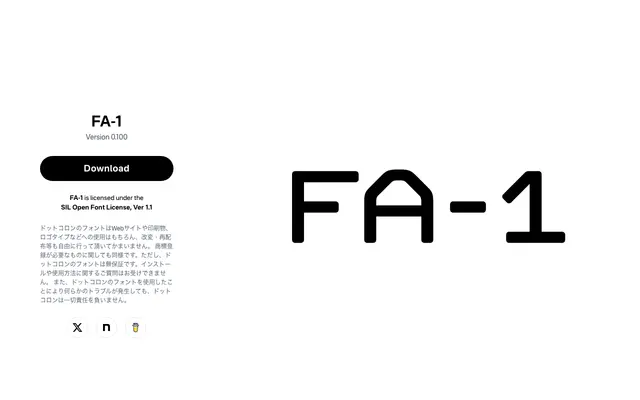
A sci-fi display typeface built on horizontal, vertical and 45-degree strokes, referencing the typography seen in the OVA 'Yukikaze'.
Constructed exclusively from horizontal, vertical and 45-degree straight lines, FA-1 distils the sci-fi elements from an earlier Dot Colon typeface, F5.6, into a standalone design. Large corner radii soften what would otherwise be a rigid, mechanical feel, lending it a quality reminiscent of low-resolution bitmap fonts. The design draws direct reference from lettering used in the OVA 'Sentou Yousei Yukikaze', redrawn from scratch with legibility in mind.
FA-1 uses only horizontal, vertical and 45-degree straight lines as its skeletal structure, with large corner radii, giving it a sci-fi bitmap aesthetic that places it firmly in the display/geometric category.